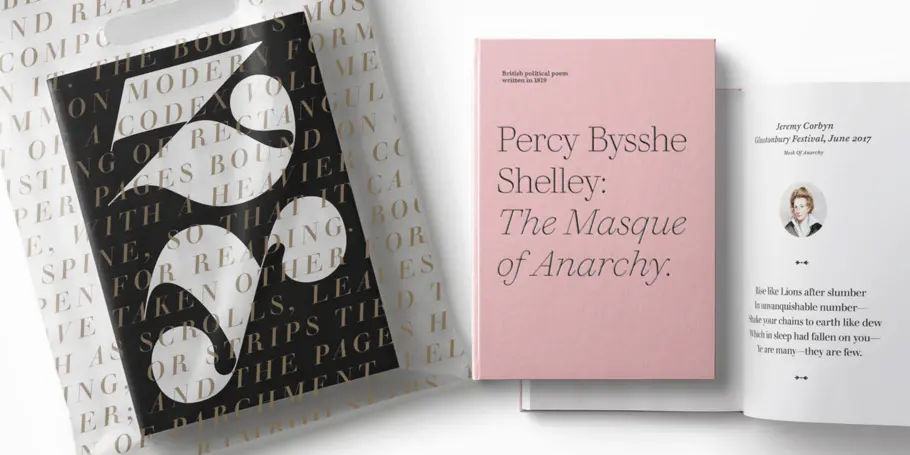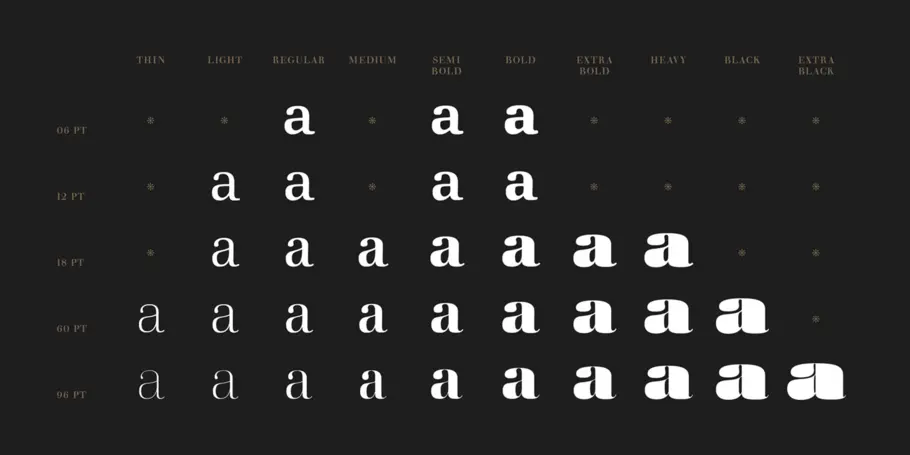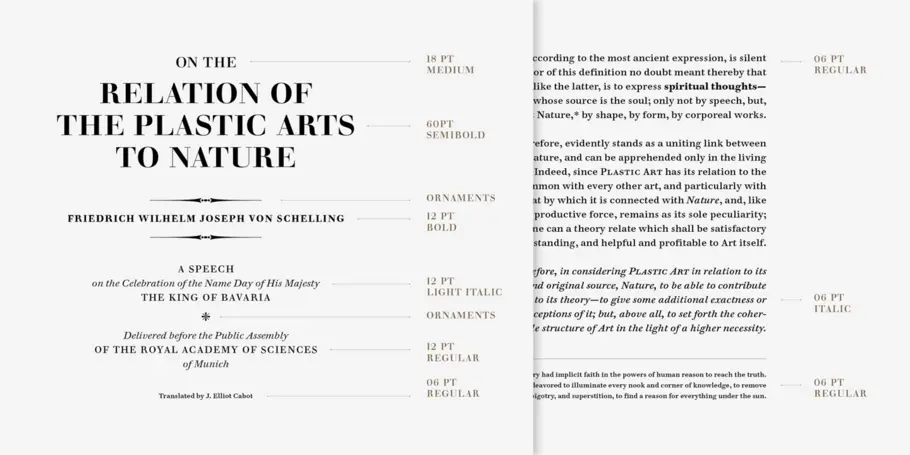
Walbaum
A restoration with superior range.
The Walbaum family designed by Charles Nix, Carl Crossgrove, and Juan Villanueva is a modern serif design that can be used in a wide variety of placements from micro caption text to massive headlines. Where other moderns preach austerity, Walbaum projects warmth—making it ideal for brands seeking a large type family that blends high style and approachability.
Walbaum was designed with a full range of size-specific cuts, from 6 to 96 point, with tailored weight and contrast for maximum legibility, utility, and impact. In addition to the huge range of weights and sizes, the family contains two decorative display cuts and an uncommonly generous host of ornaments.
Charles Nix is a Creative Type Director, designer, typographer and educator. He designed a number of popular typefaces in the Monotype Library, including Walbaum and Hope Sans, which received a Certificate of Typographic Excellence in the 22nd Annual Type Directors Club Typeface Design Competition. He’s also designed custom typefaces for Google Noto, Progressive Insurance and the Philadelphia Museum of Art.
Carl Crossgrove is a Senior Type Designer at Monotype. From Carl’s early interest in calligraphy and drawing, through his youth and college years studying fine arts and book arts, to his eventual degree from Rochester Institute of Technology in Printing/Typography, the constant thread in Carl’s life has been his fascination with letterforms.
Juan Villanueva is a Type Designer at the Monotype Studio in New York City. His contributions to the Monotype Library include designs such as Walbaum and Sagrantino. He’s worked on custom typefaces for clients including Tencent Sans, Ricky Zoom, and multiple Google Noto fonts.